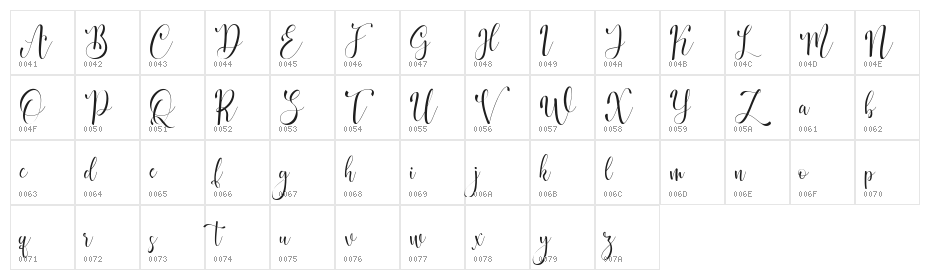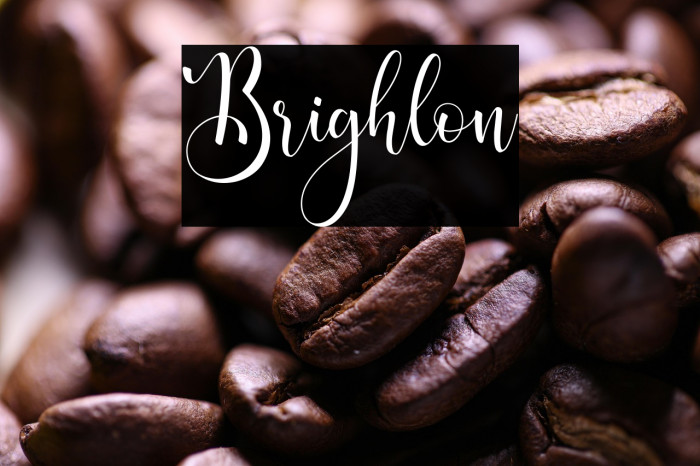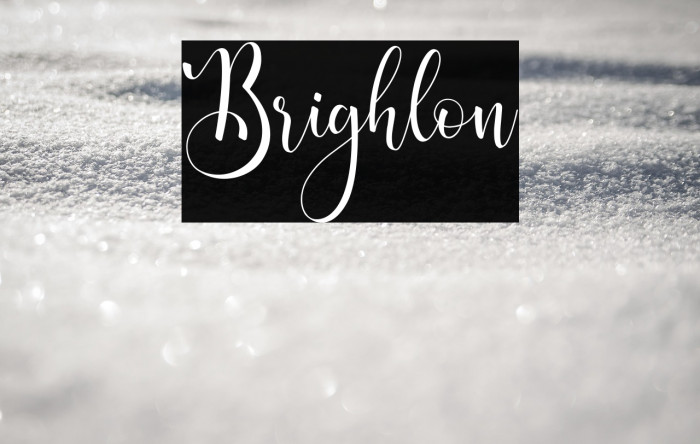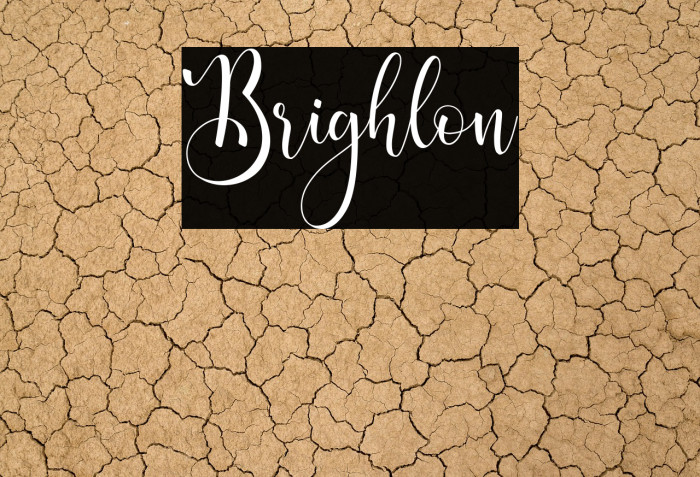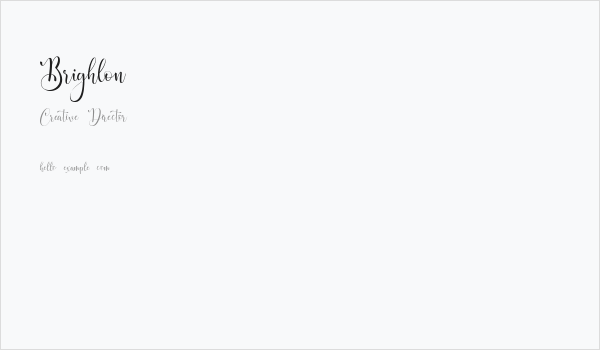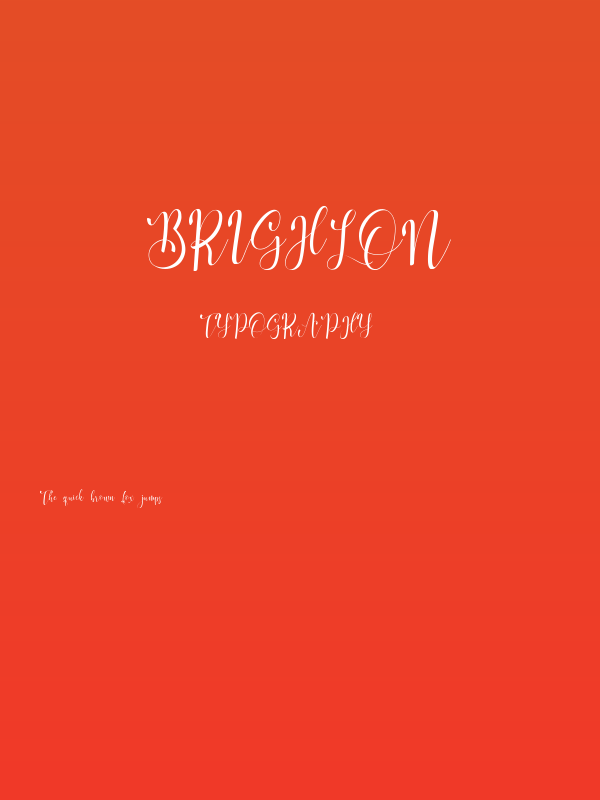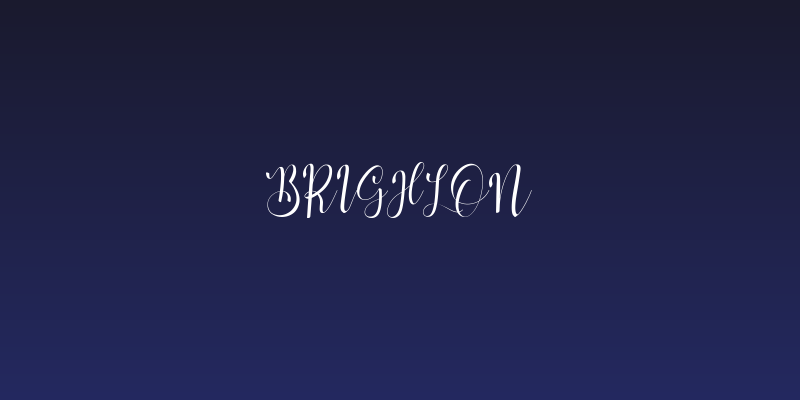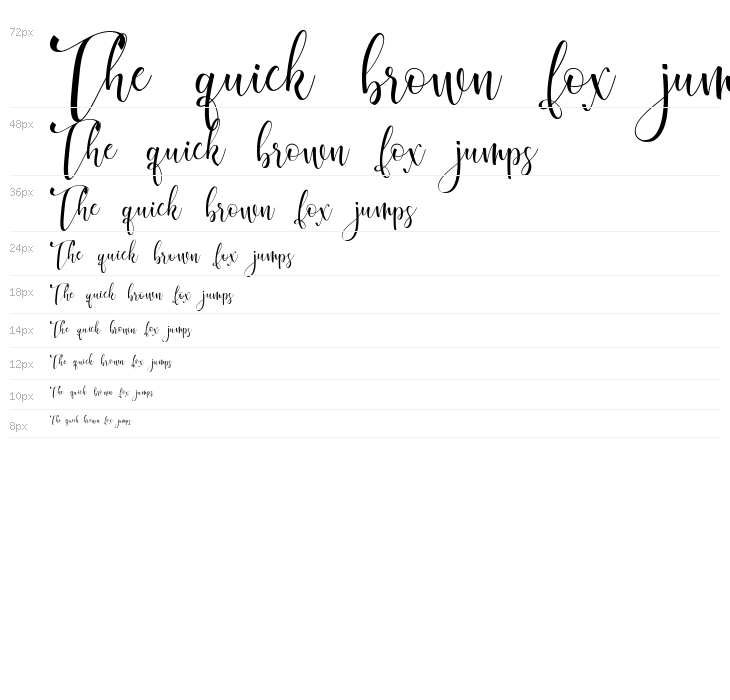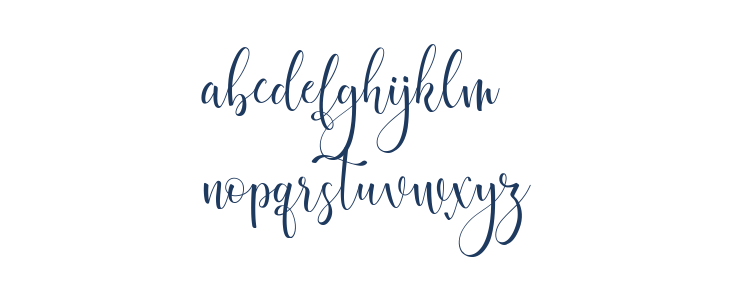
Brighlon Font
Brighlon Description
This elegant script font features flowing, interconnected letters with a graceful and sophisticated appearance. The uppercase letters are adorned with intricate swashes and loops, giving them a decorative flair. The lowercase letters maintain a consistent style, with smooth curves and a slight slant that enhances the font's fluidity. The numerals and special characters are designed to match the overall aesthetic, ensuring a cohesive look across all text. This font is perfect for adding a touch of elegance and refinement to any design project.
Overall StyleElegant
Use CaseLogos, Invitations, Decorative text
Proposed ProjectsIdeal for wedding invitations, greeting cards, branding, and elegant packaging designs.